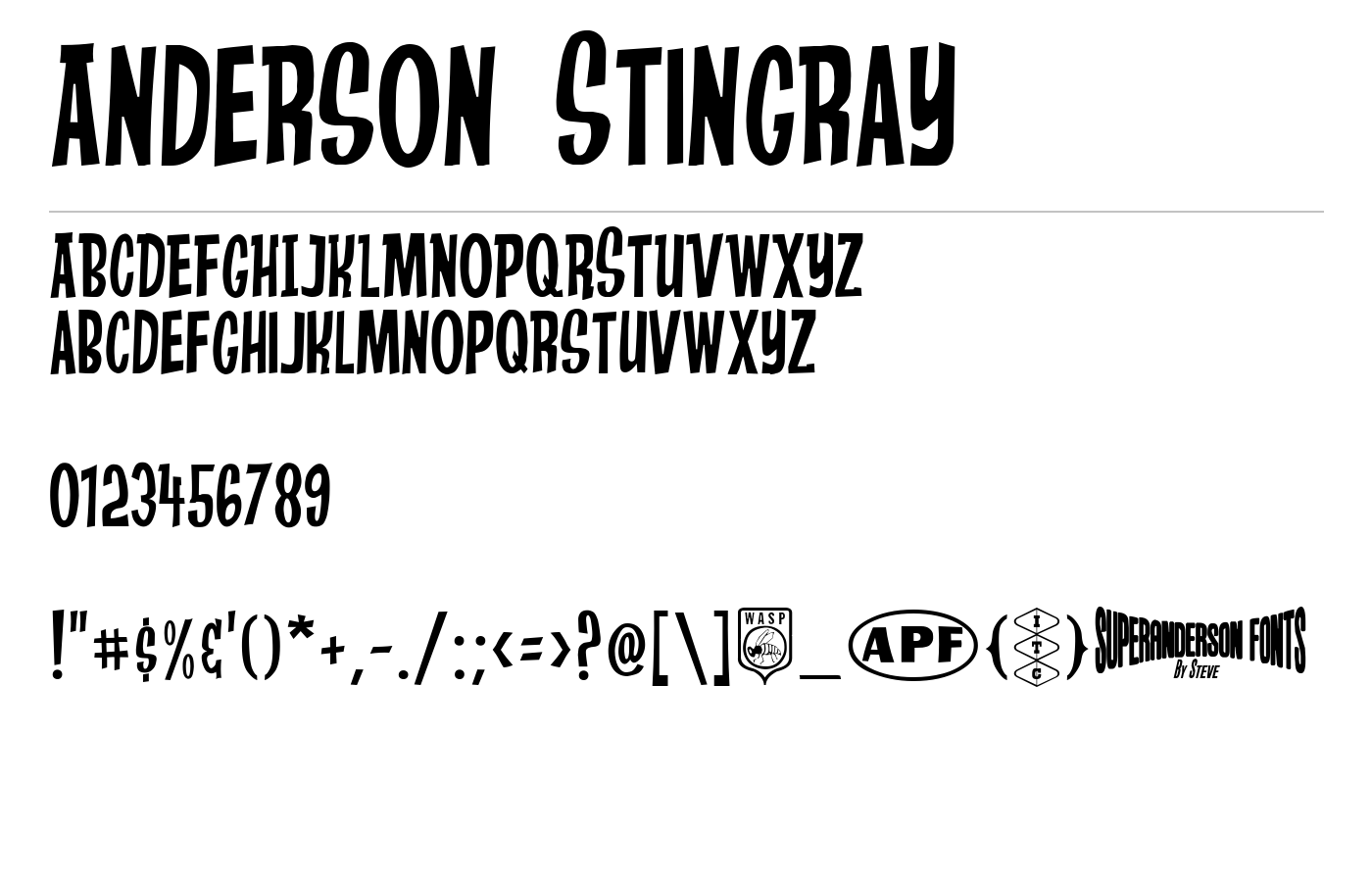
Anderson Stingray is a bold, condensed sans serif font with a playful and vintage comic-book style. Its tall, narrow letterforms and slightly irregular curves give it a dynamic, energetic personality, making it ideal for eye-catching headlines, posters, and branding that want to convey fun and uniqueness. This font works best in display settings where its distinctive character can stand out without sacrificing readability.
Anderson Stingray Font